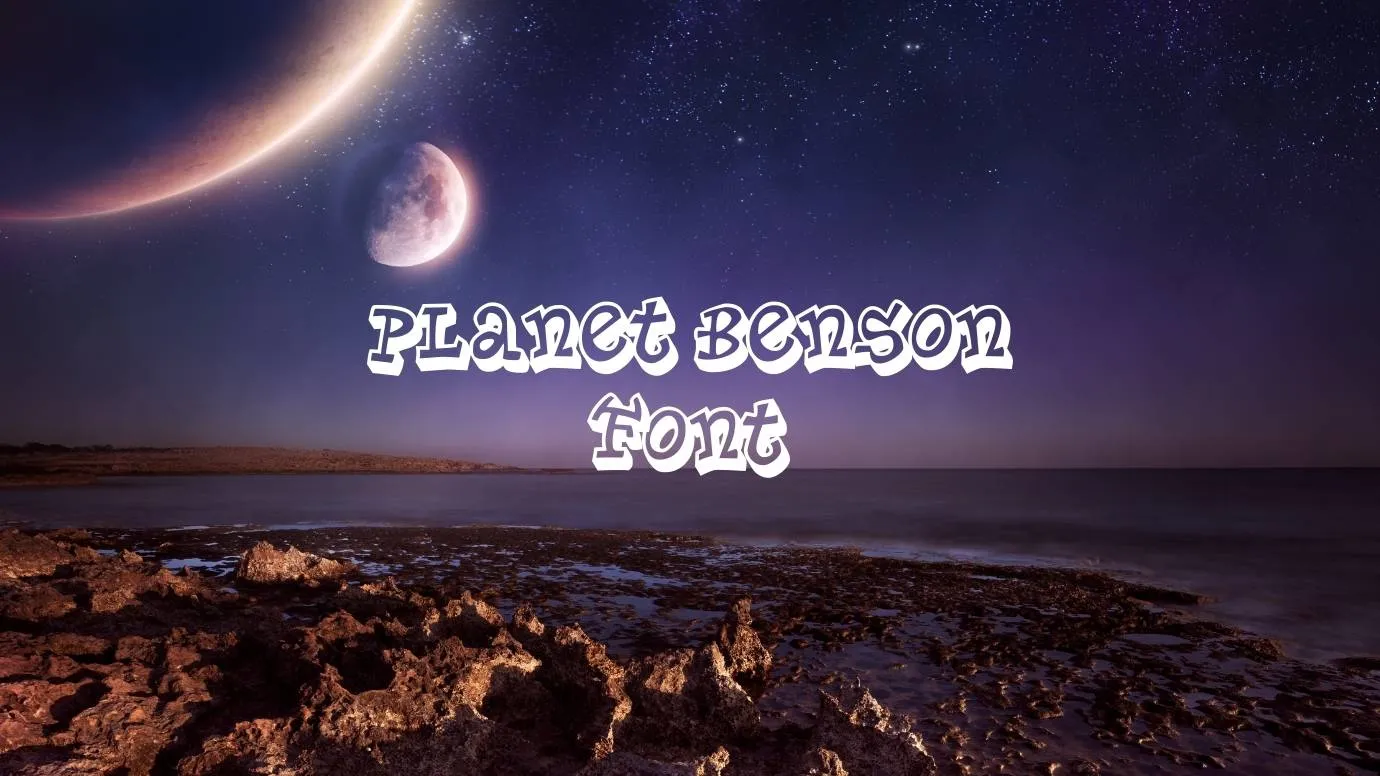
Planet Benson Font Family is a whimsical, street art-inspired typeface crafted by Ray Larabie, which made its debut in 1997 courtesy of Typodermic Fonts for public consumption. This font boasts a singular regular style.
| Name | Planet Benson Font |
| Designer | Ray Larabie |
| Foundry | Typodermic Fonts |
| Style | Comic |
| Date Released | 1997 |